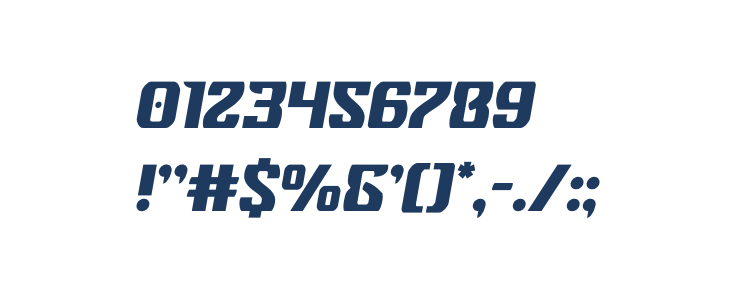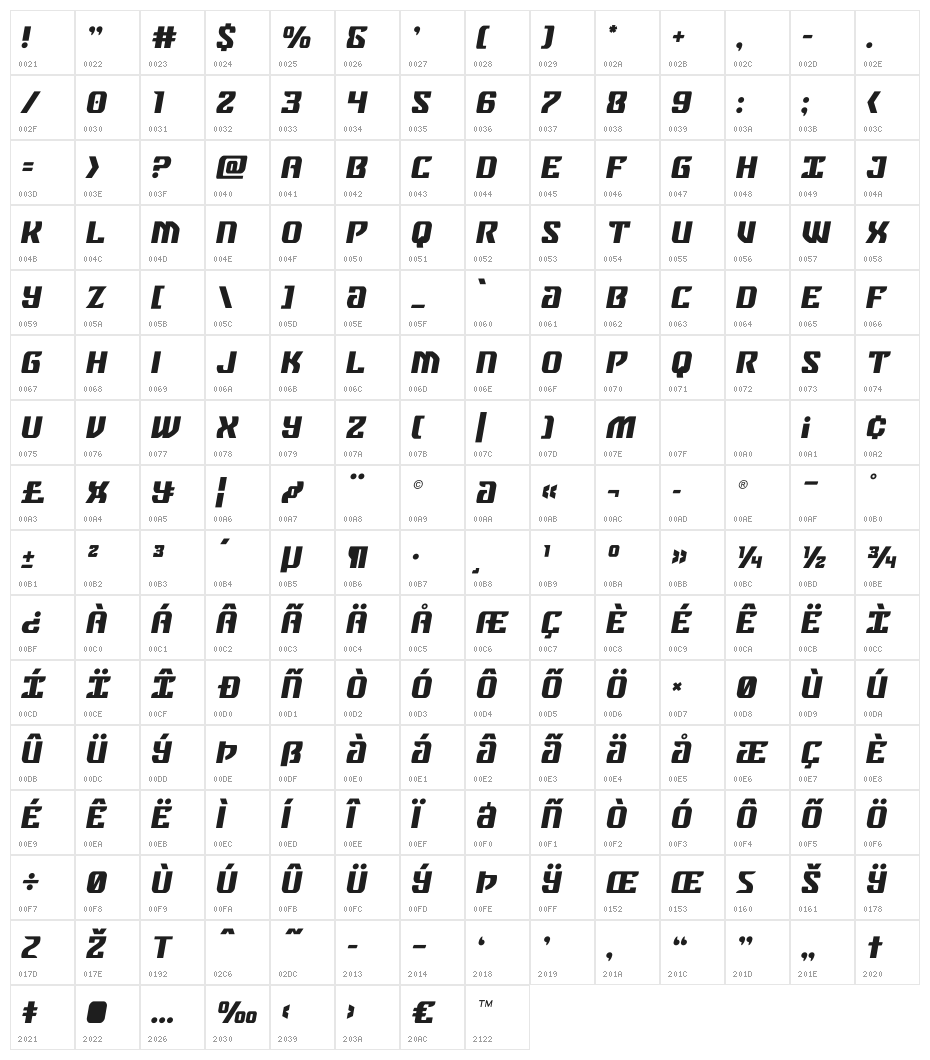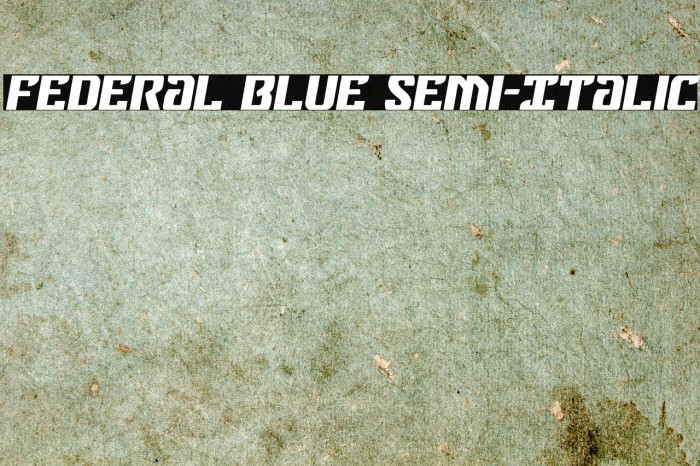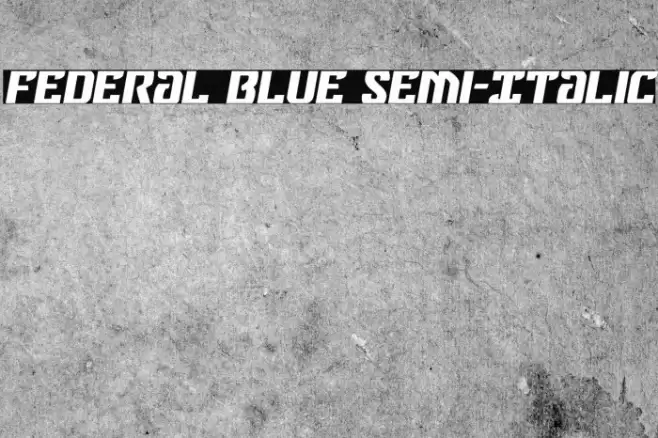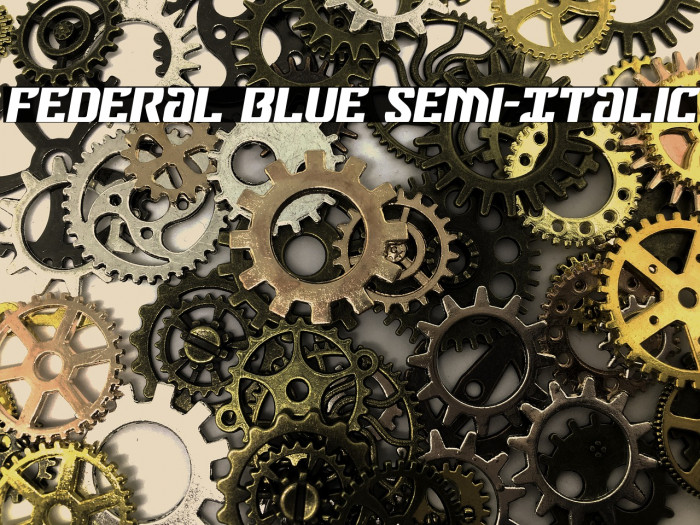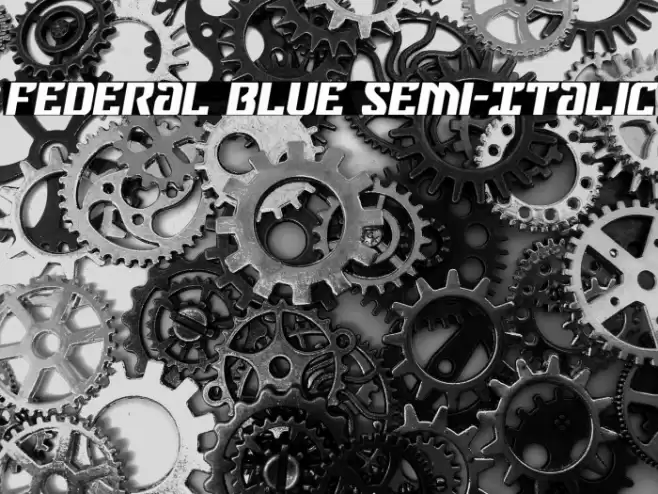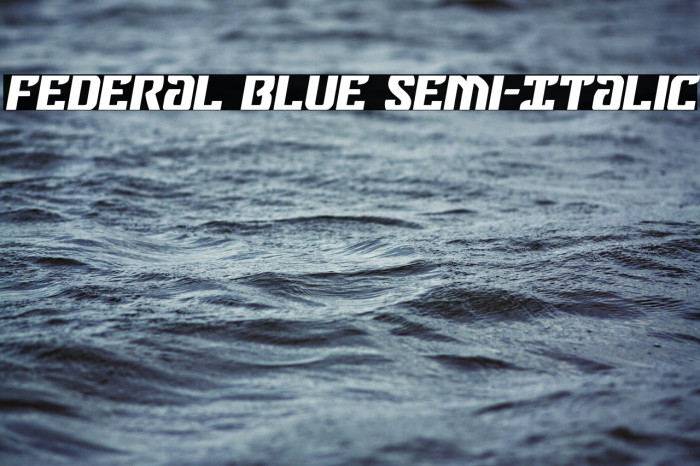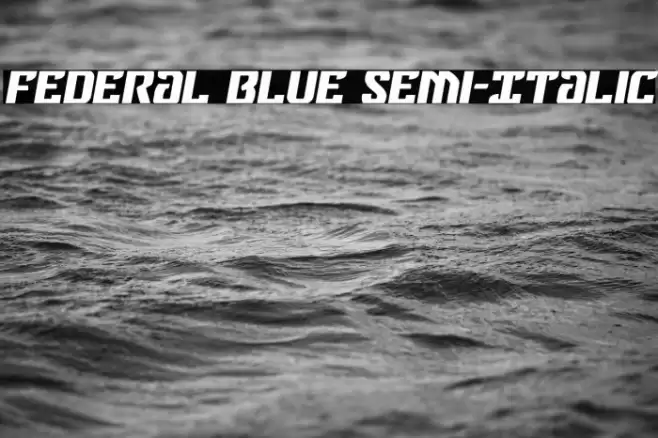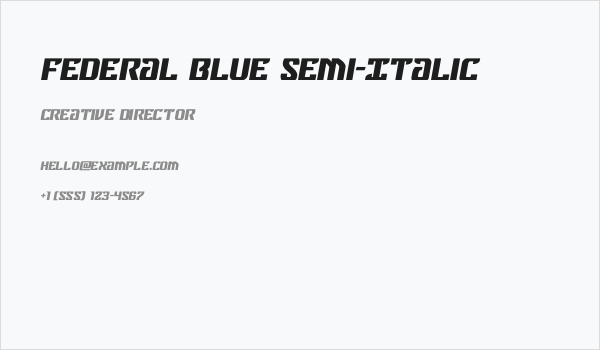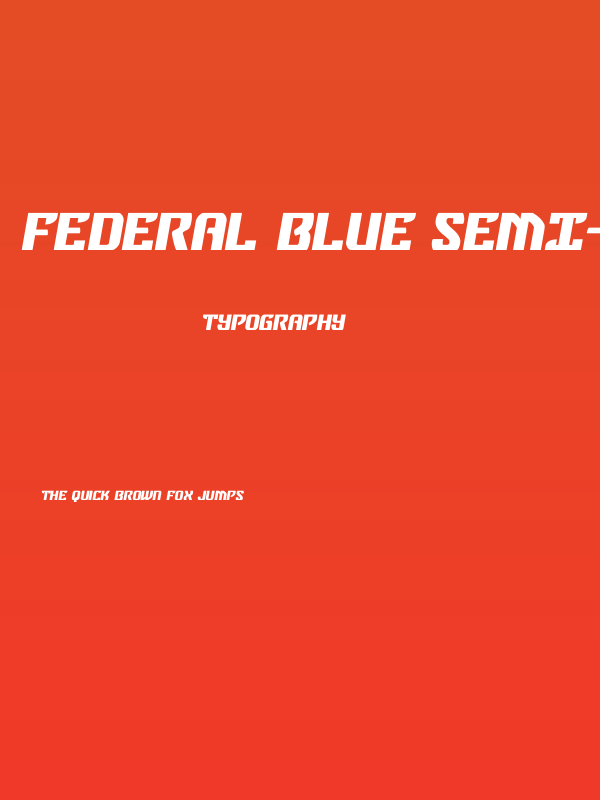
Federal Blue Semi-Italic Font
Federal Blue Semi-Italic Description
This font features a bold and dynamic design with a semi-italic slant, giving it a sense of motion and energy. The characters are robust and slightly condensed, with sharp angles and clean lines that convey a modern and assertive aesthetic. The uppercase and lowercase letters maintain a consistent style, while the numerals and special characters are designed to complement the overall look. The font's boldness and unique style make it suitable for impactful headlines and attention-grabbing designs.
| Proposed Projects | Ideal for sports branding, dynamic posters, and modern advertising campaigns. |